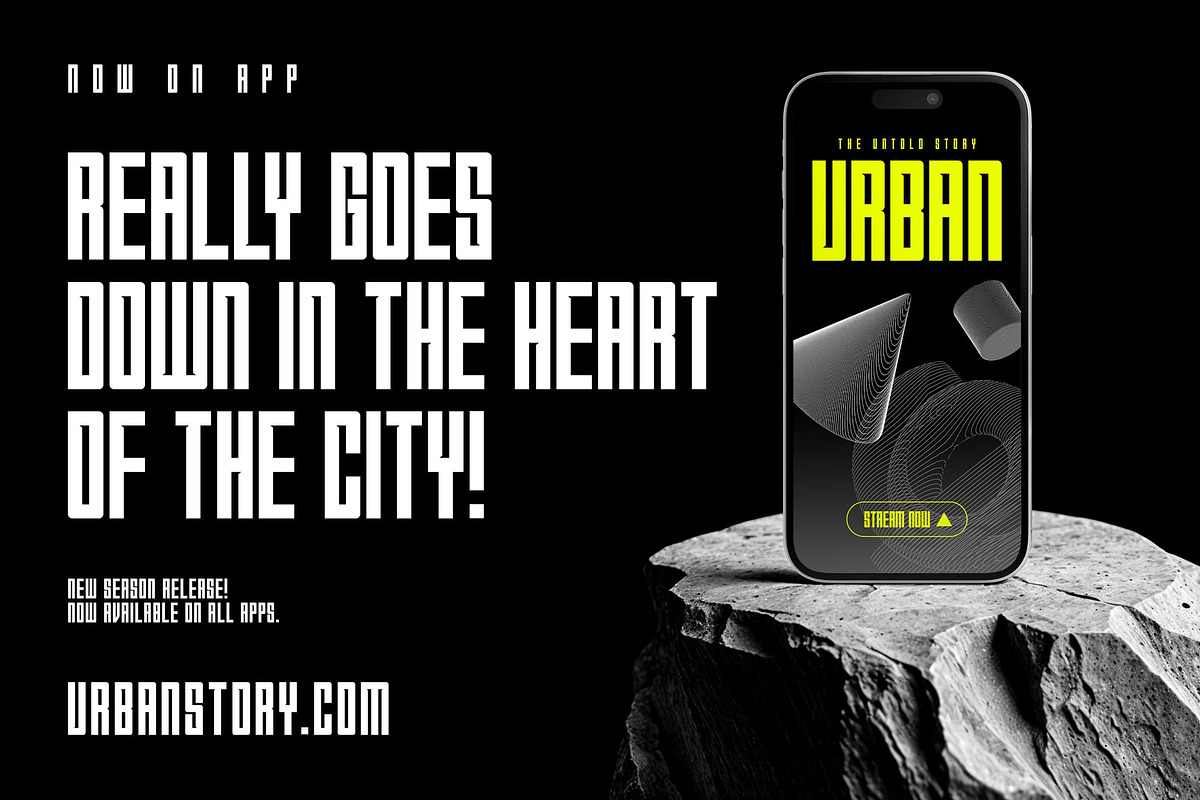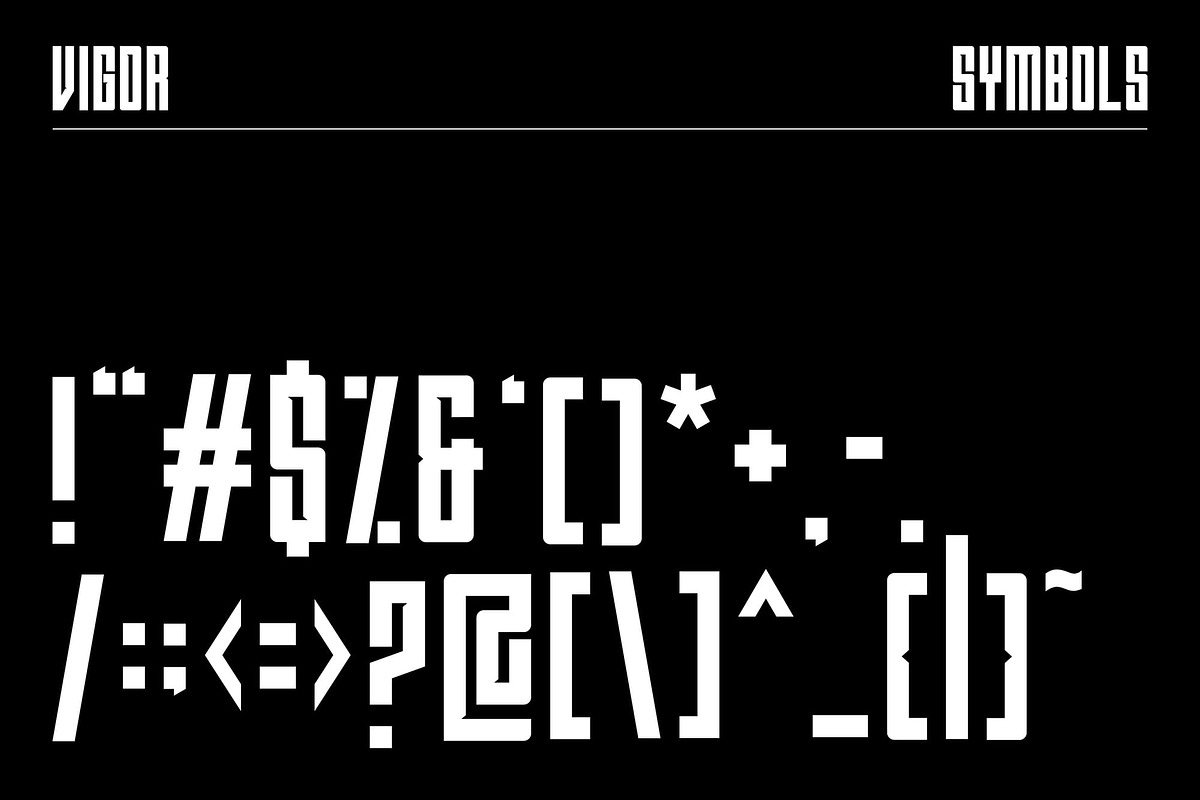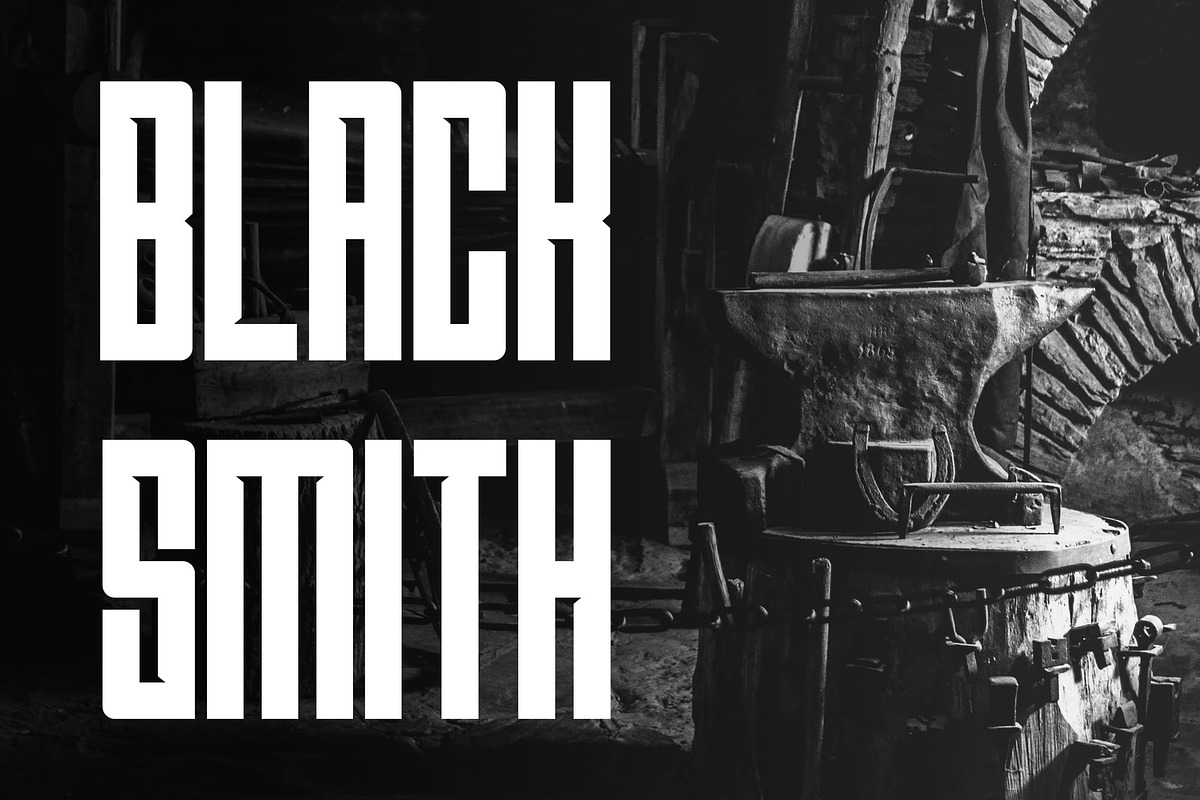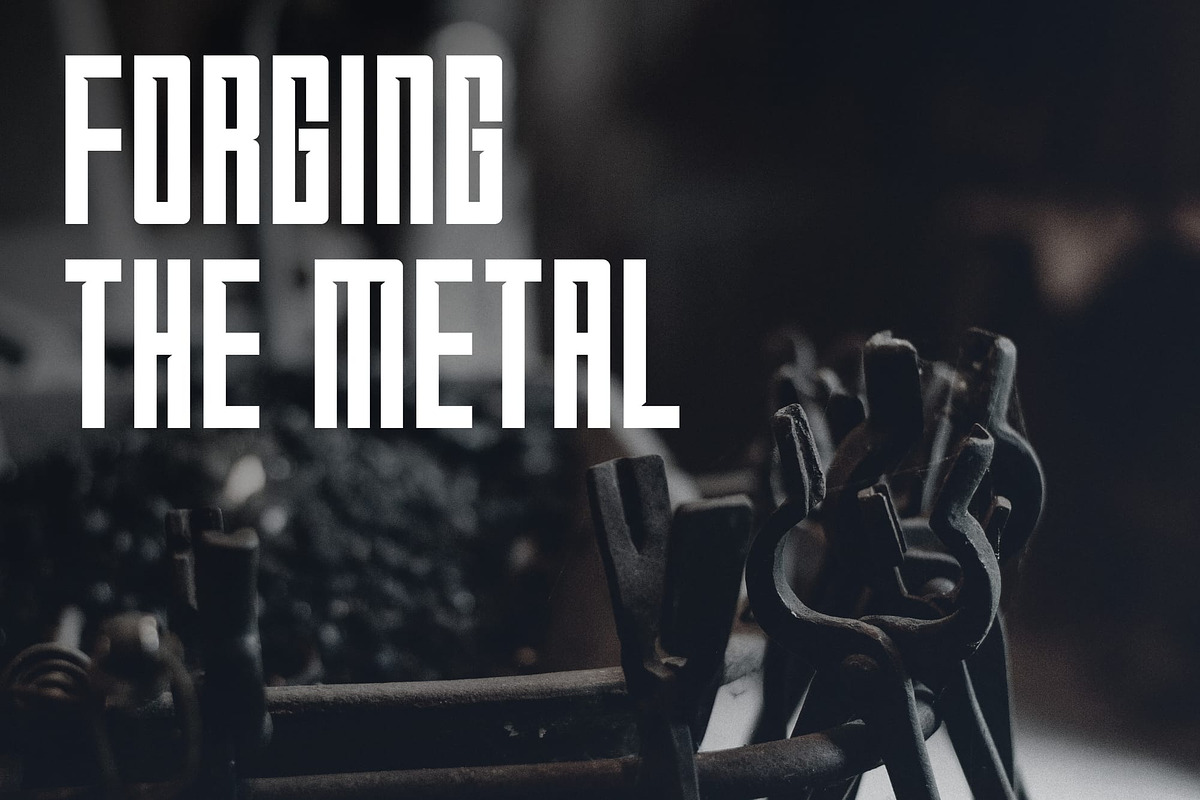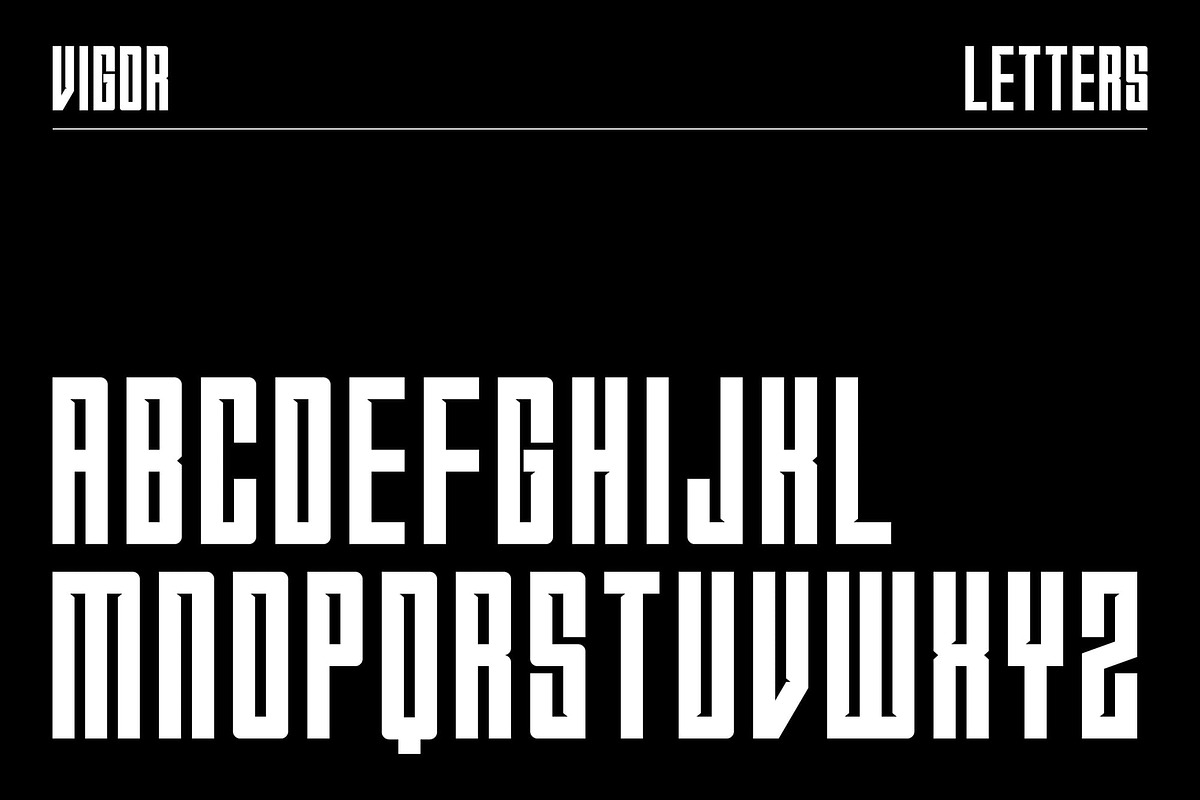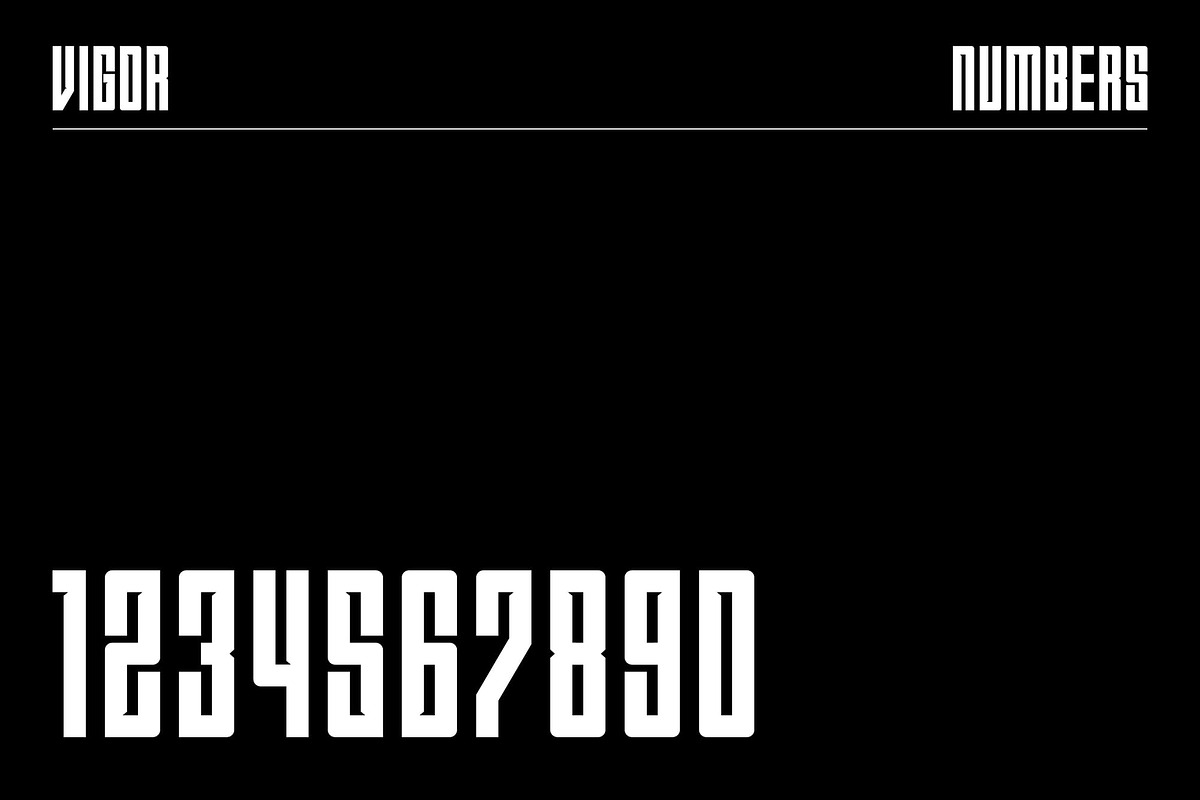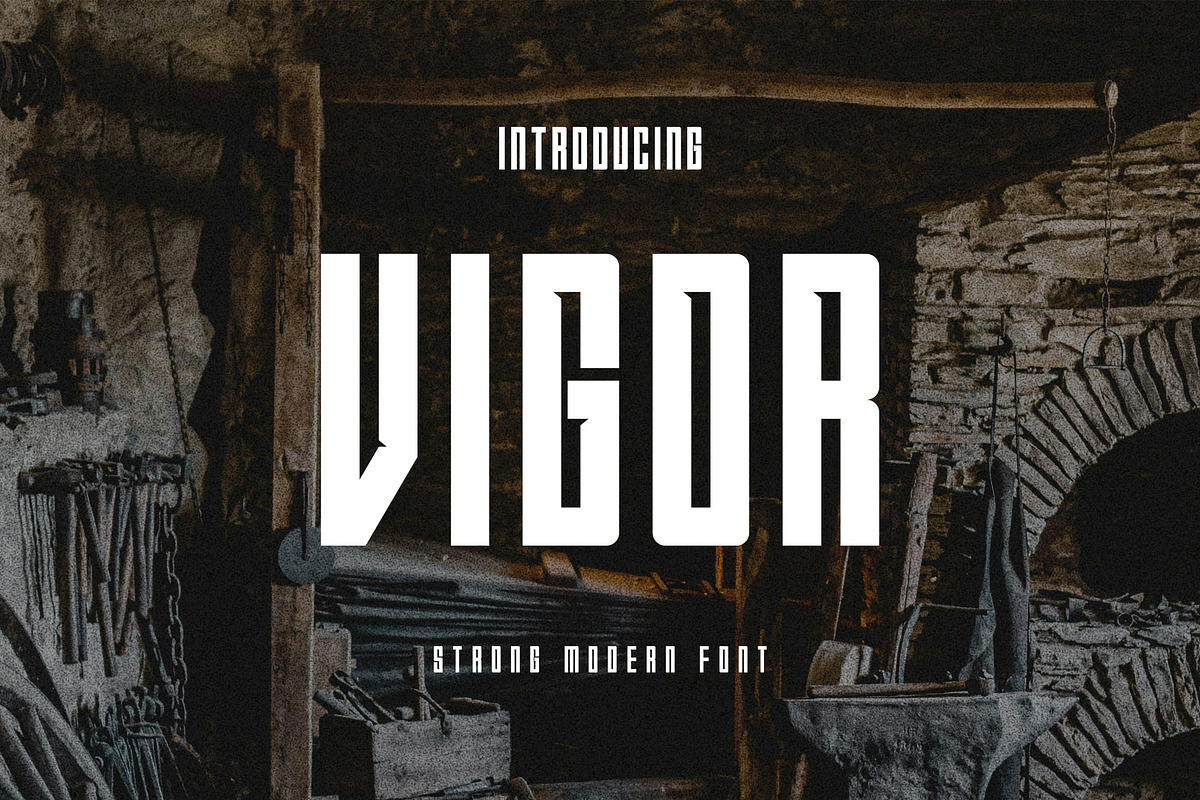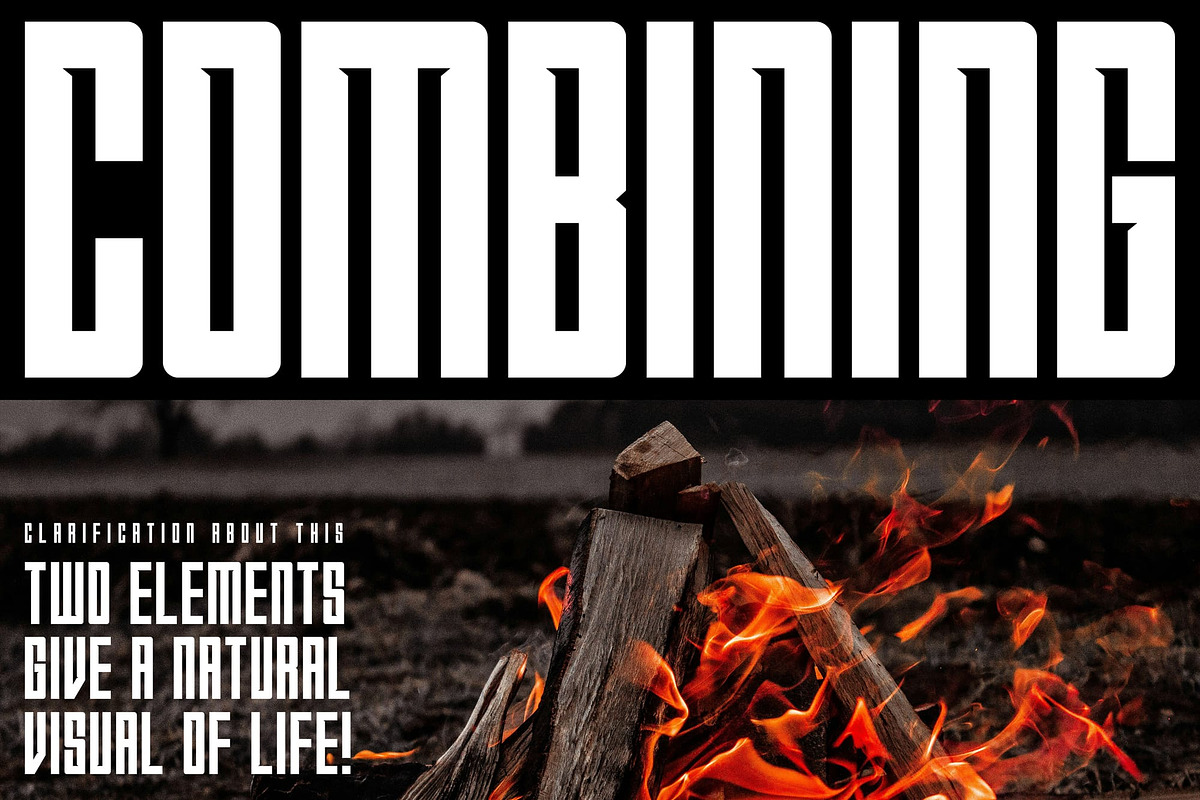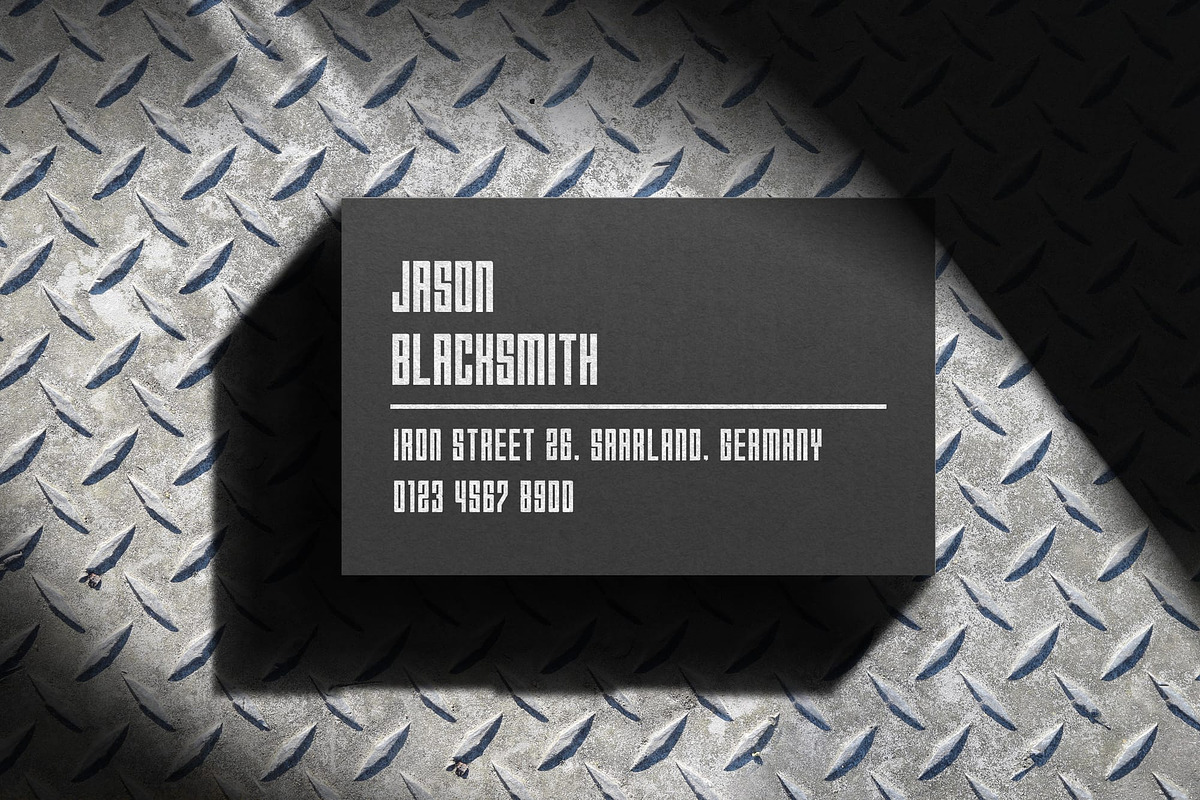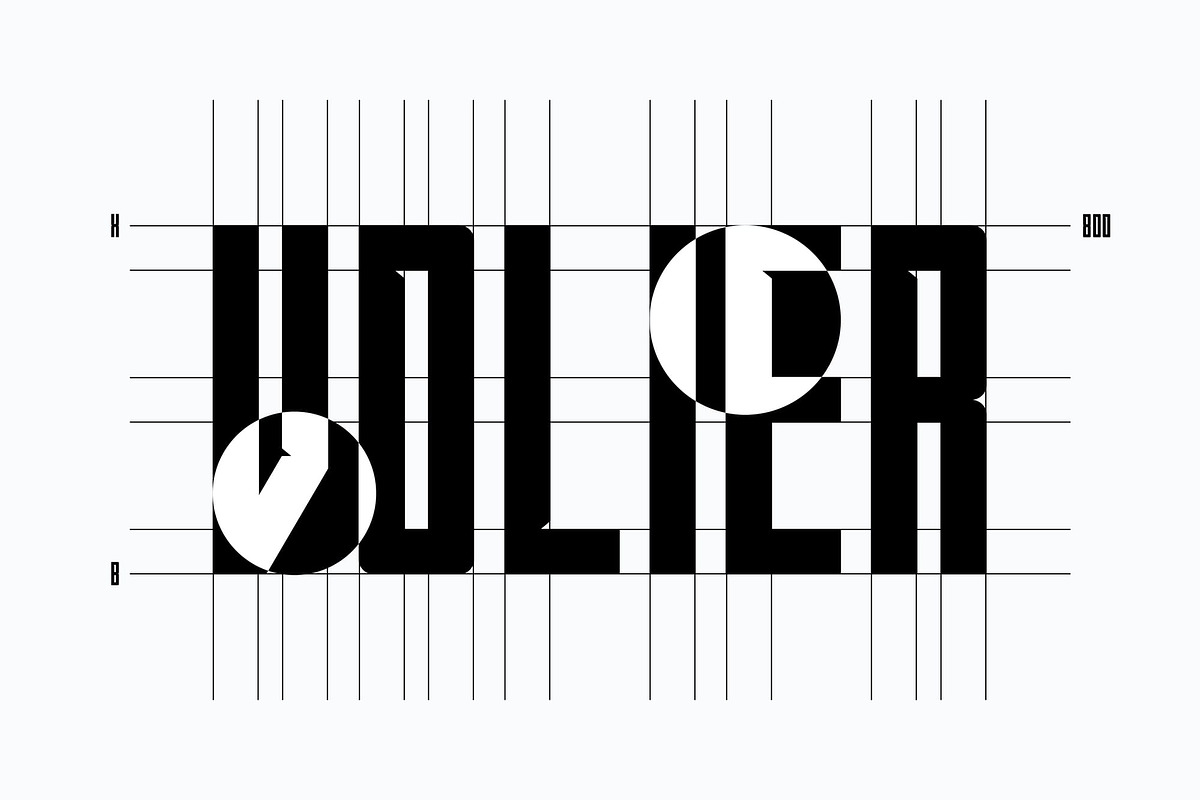
Vigor
Uppercase display font that captures attention with its strong, dynamic character. Designed for impact, this stylish typeface is perfect for headlines, branding, and promotional materials that require a powerful presence. With its striking lines and modern flair, Vigor brings energy and confidence to any design, making it the ideal choice for creatives looking to make a memorable statement.